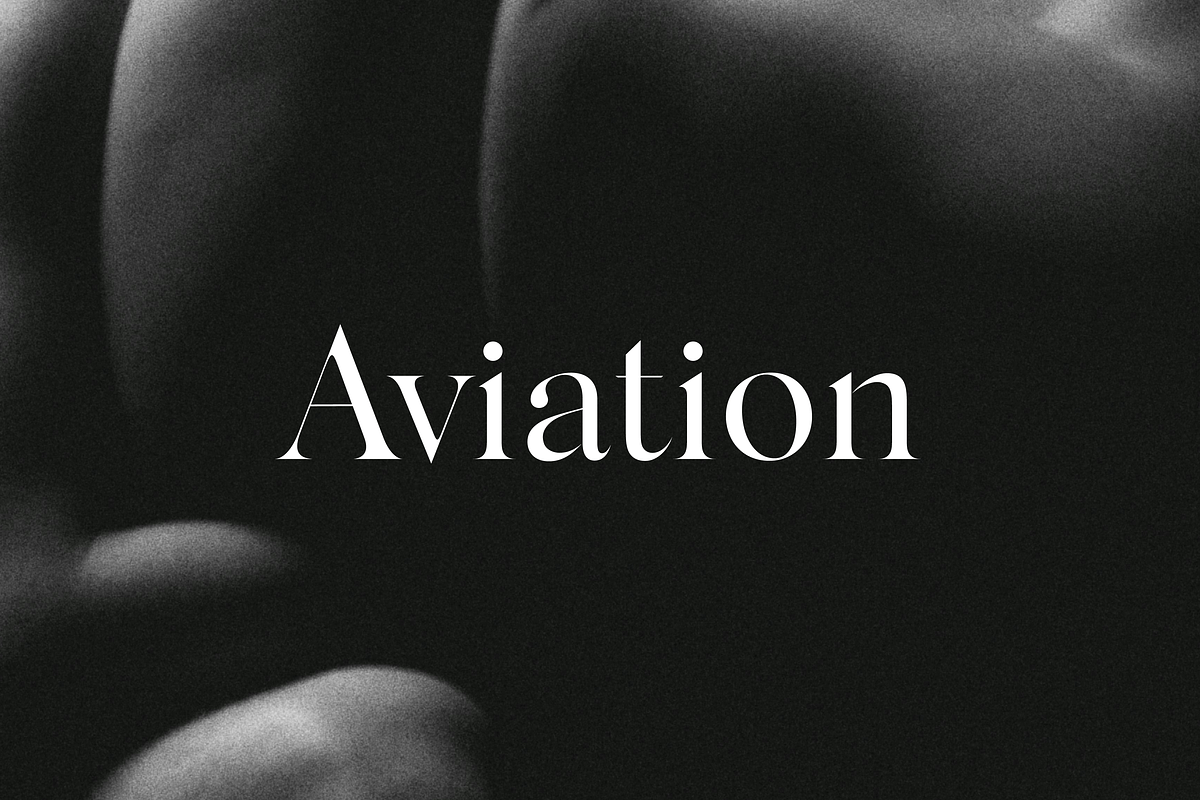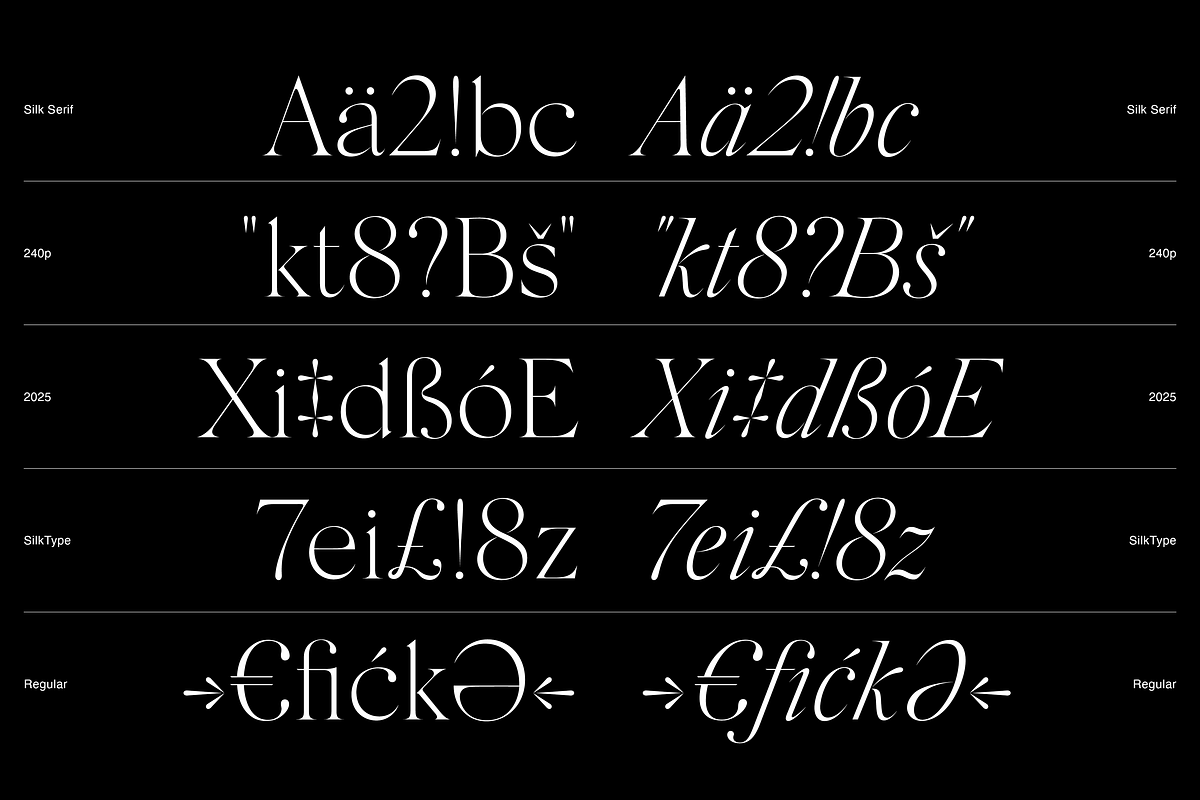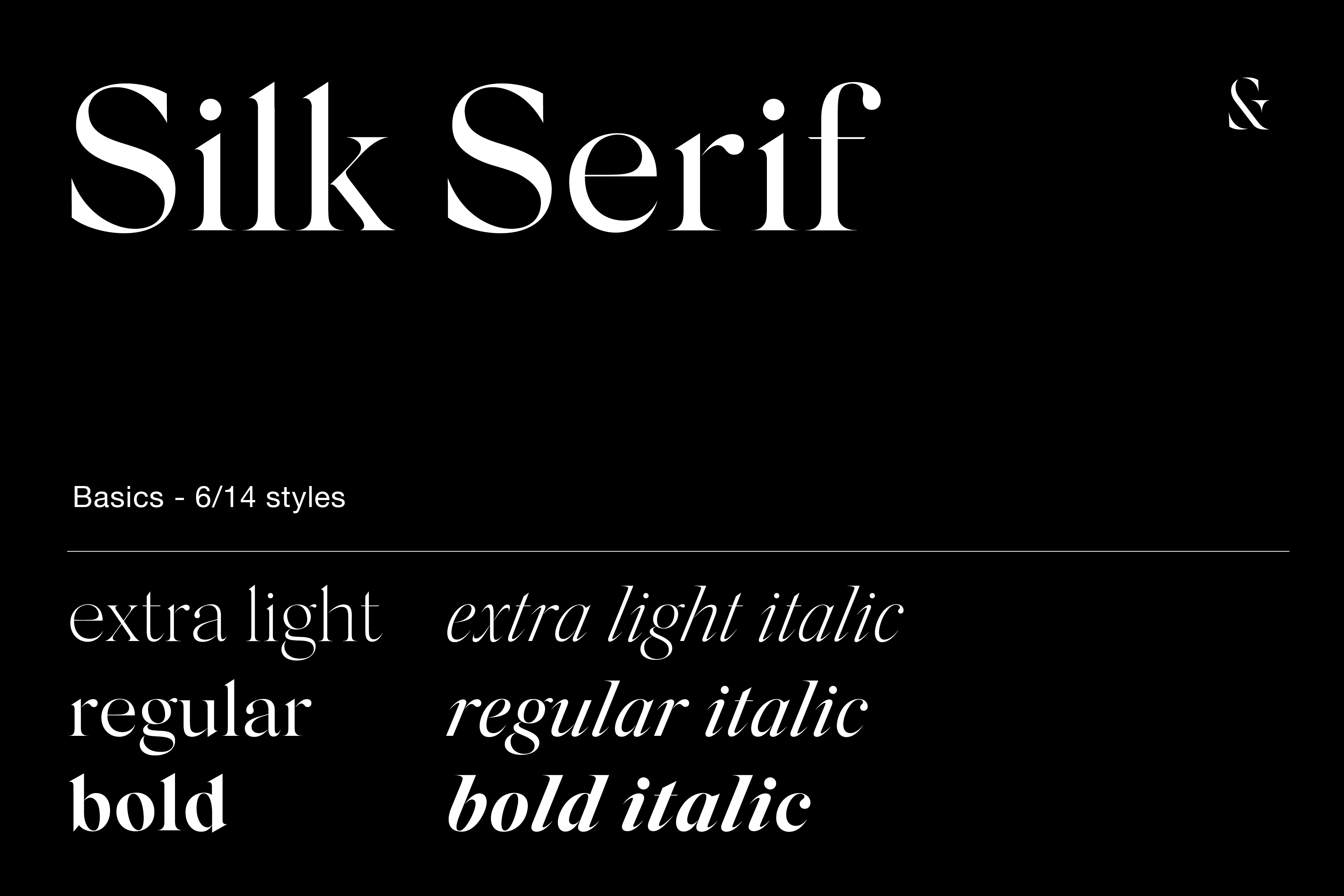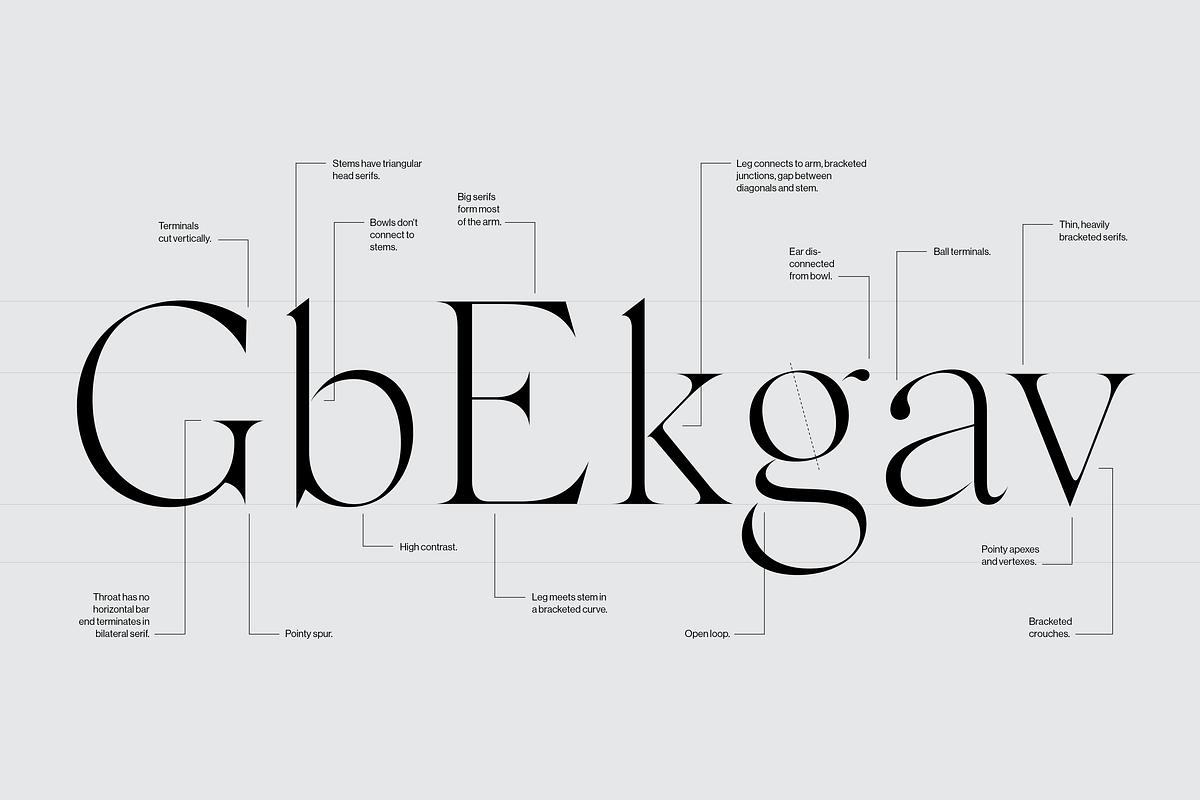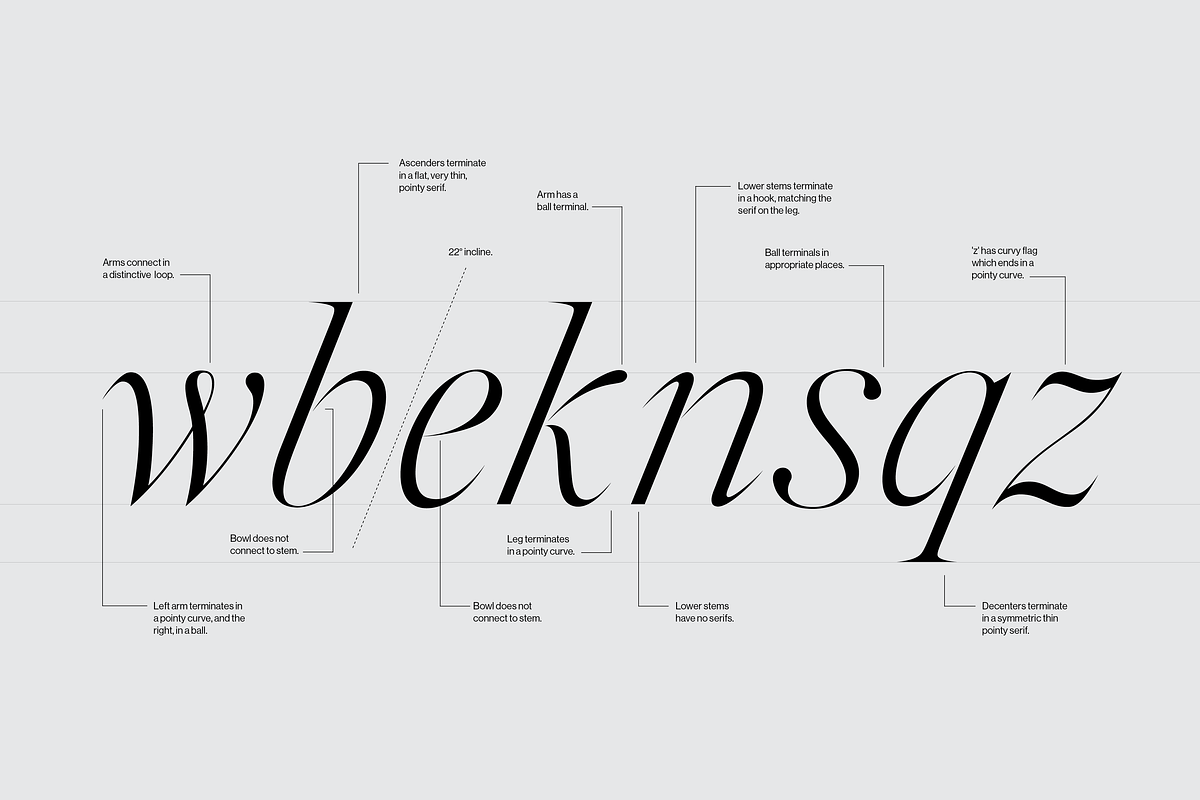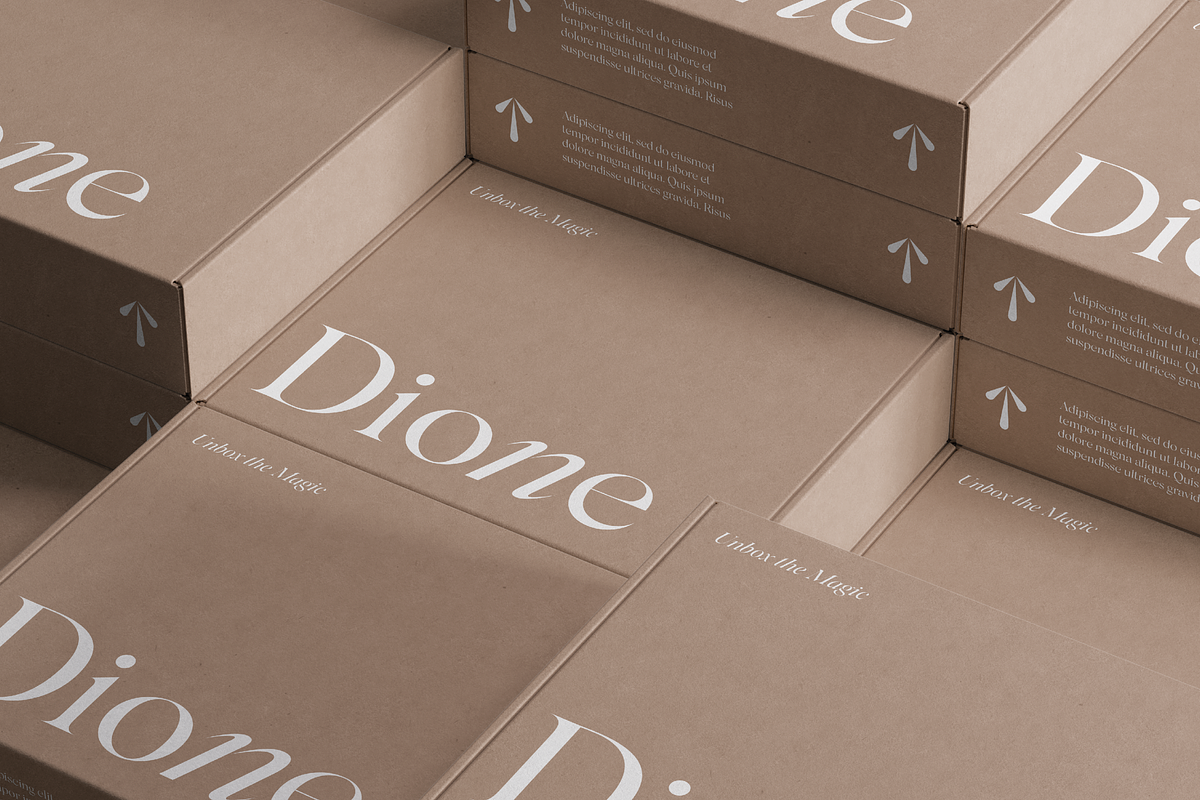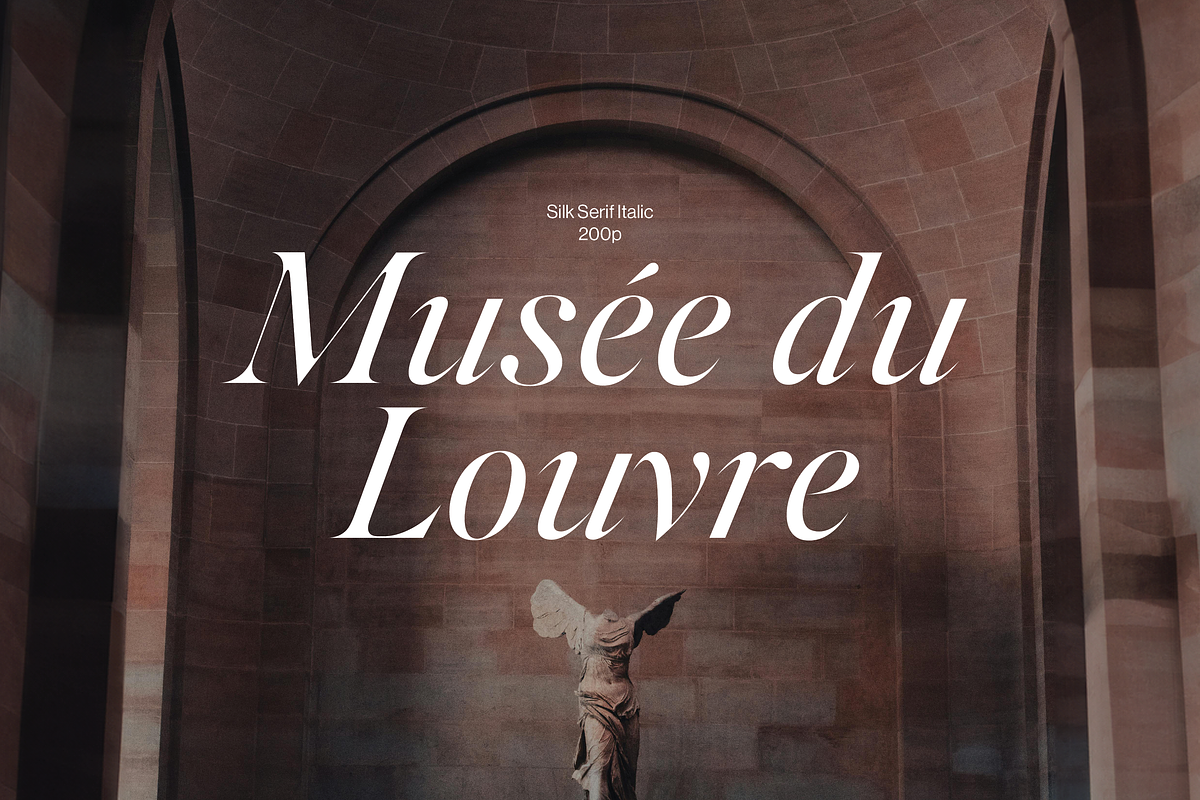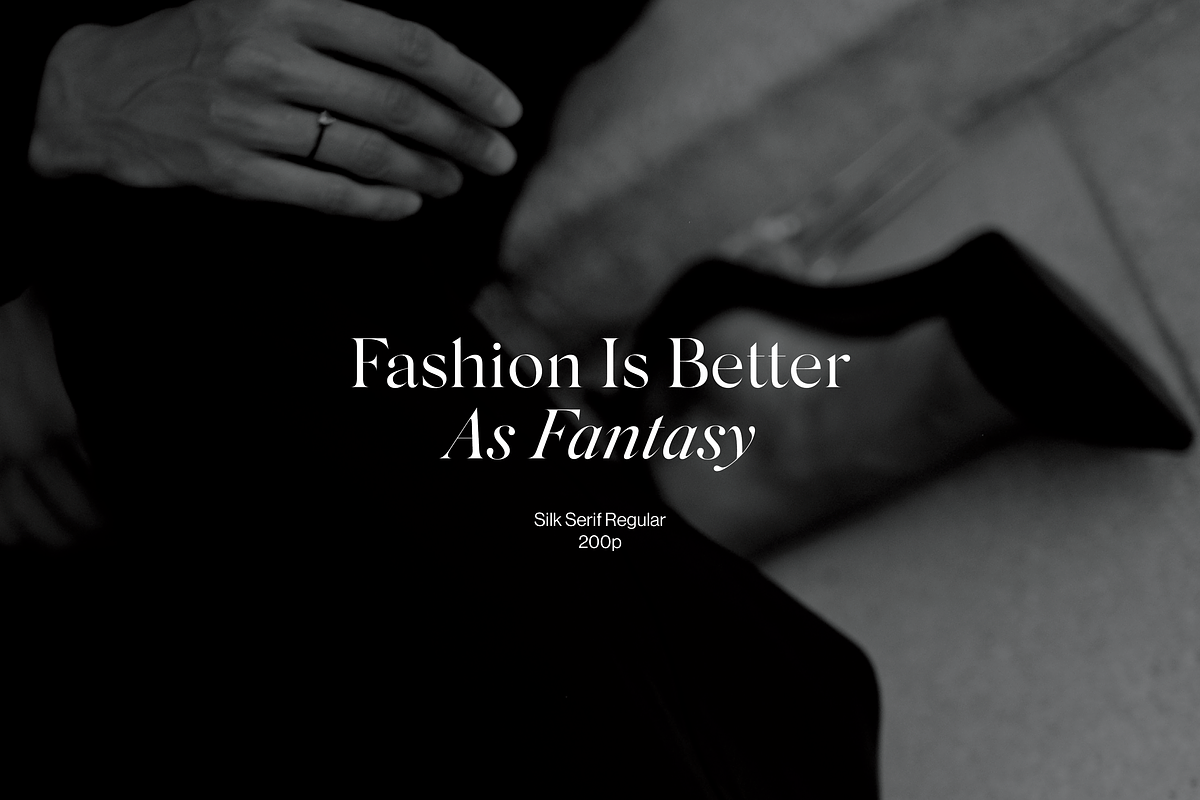
Silk Serif - 6 font family
The Silk Serif Basics family offers a focused selection of 6 styles, including Extra Light, Regular, and Bold weights with matching italics. Perfect for projects where simplicity and elegance meet functionality, it’s a compact collection designed to inspire.
Silk Serif is a high-contrast typeface with thin, pointy, heavily bracketed serifs, and ball terminals in the appropriate places, as well as bracketed junctions in various letterforms. The main feature of the typeface is the disconnection between the bowls and the stems. However, the bowl is very close to the stem, creating the illusion of connection. Silk is delicate and legible — but above all, it is sophisticated.